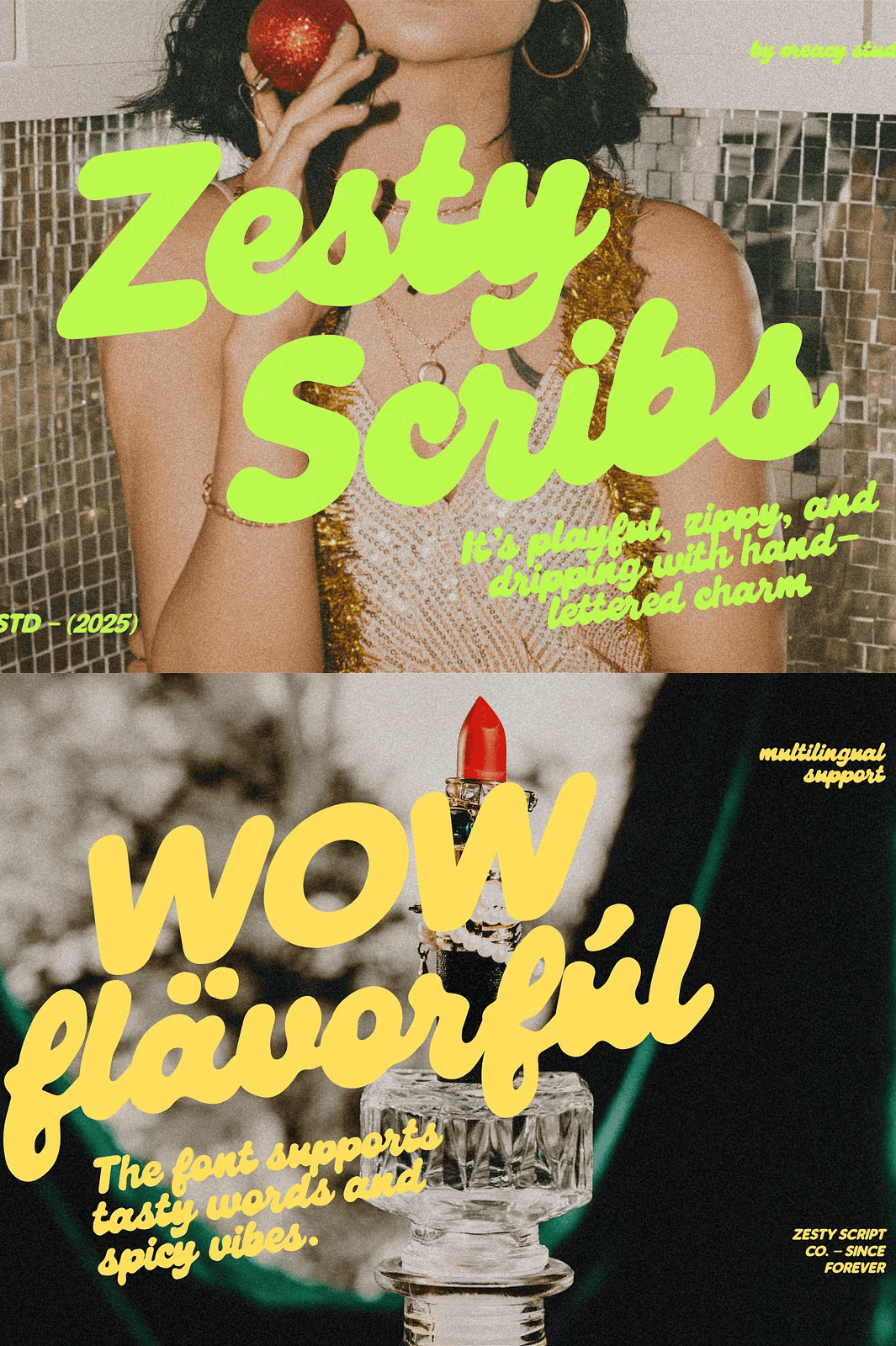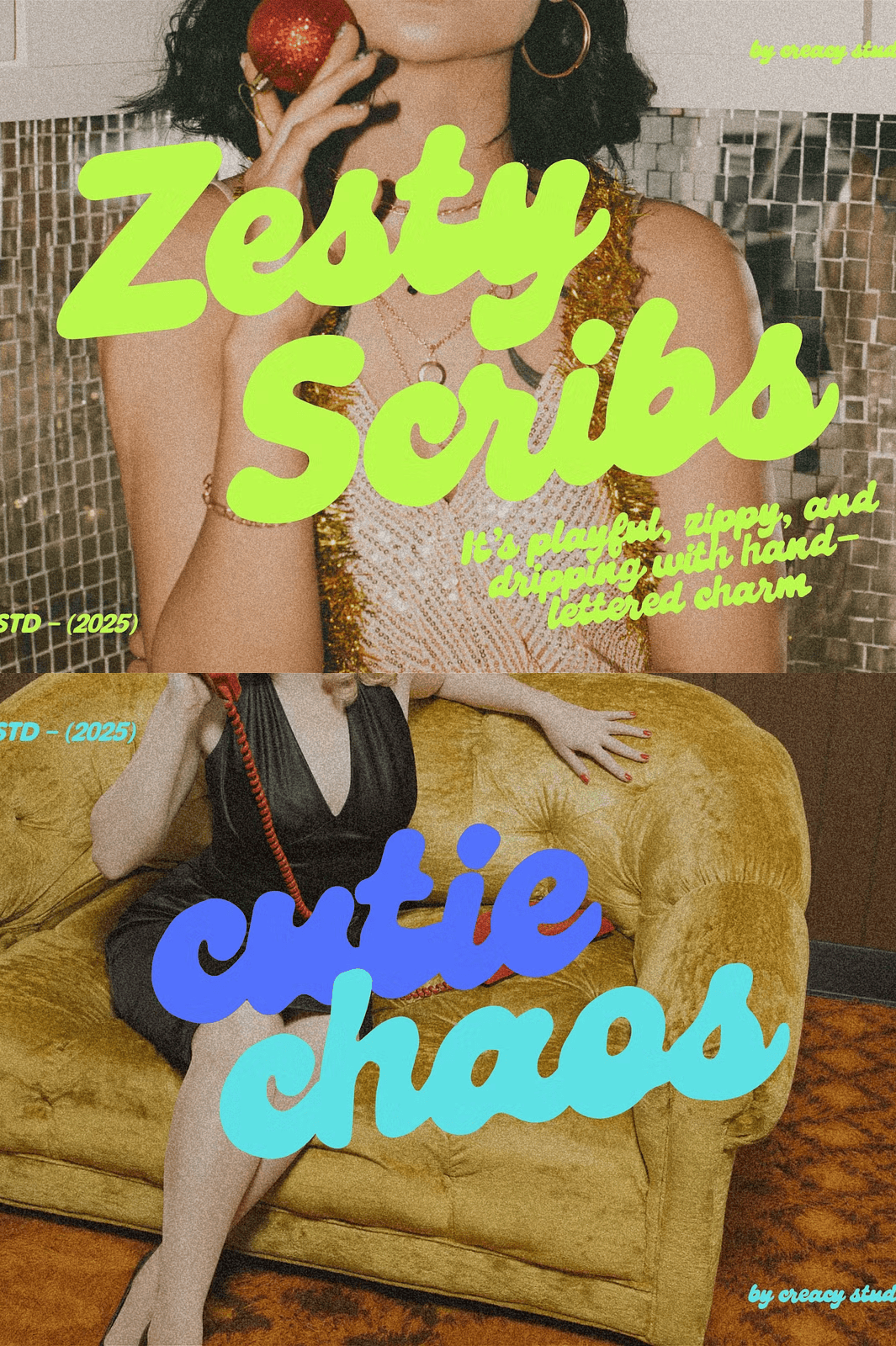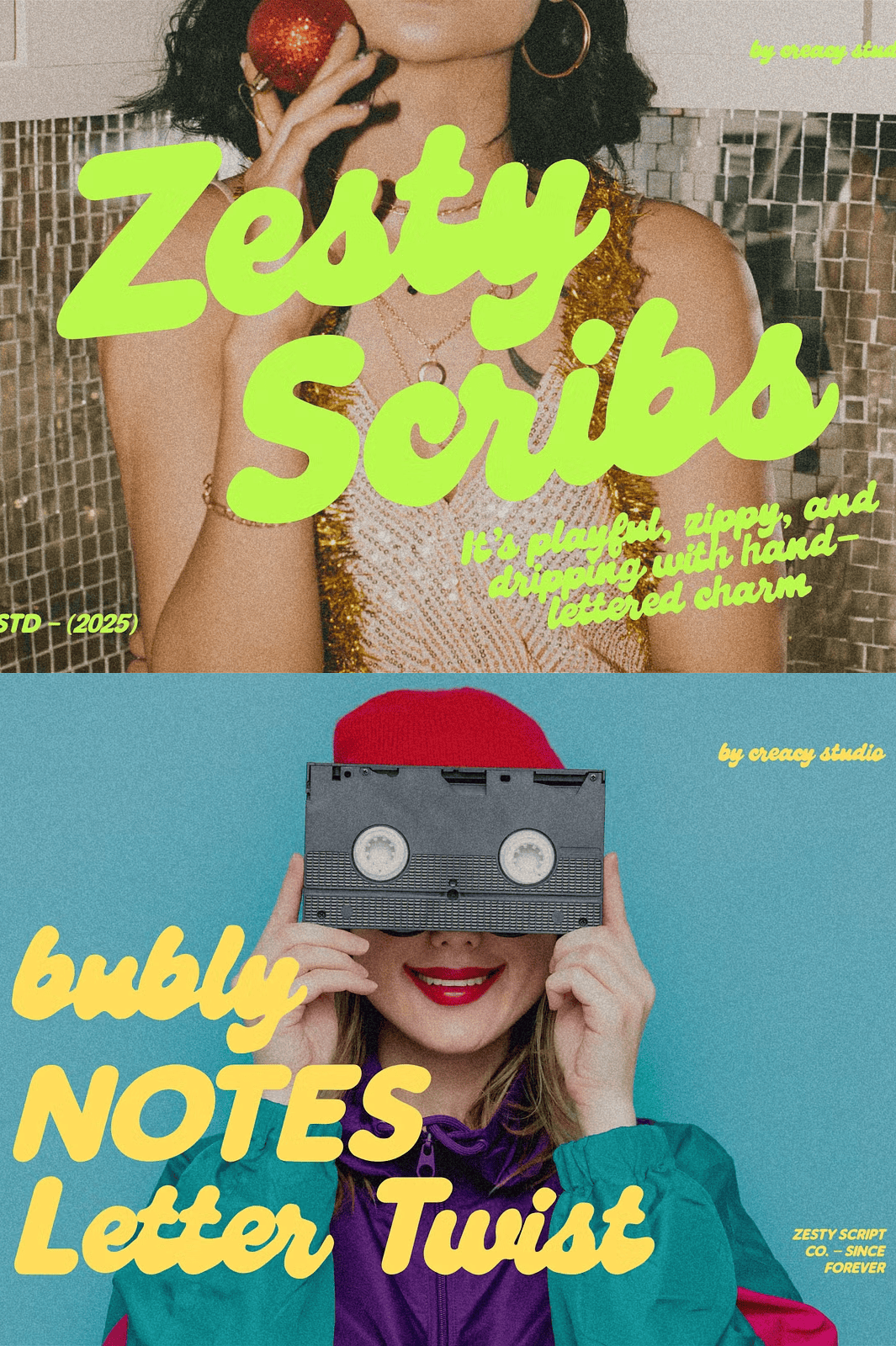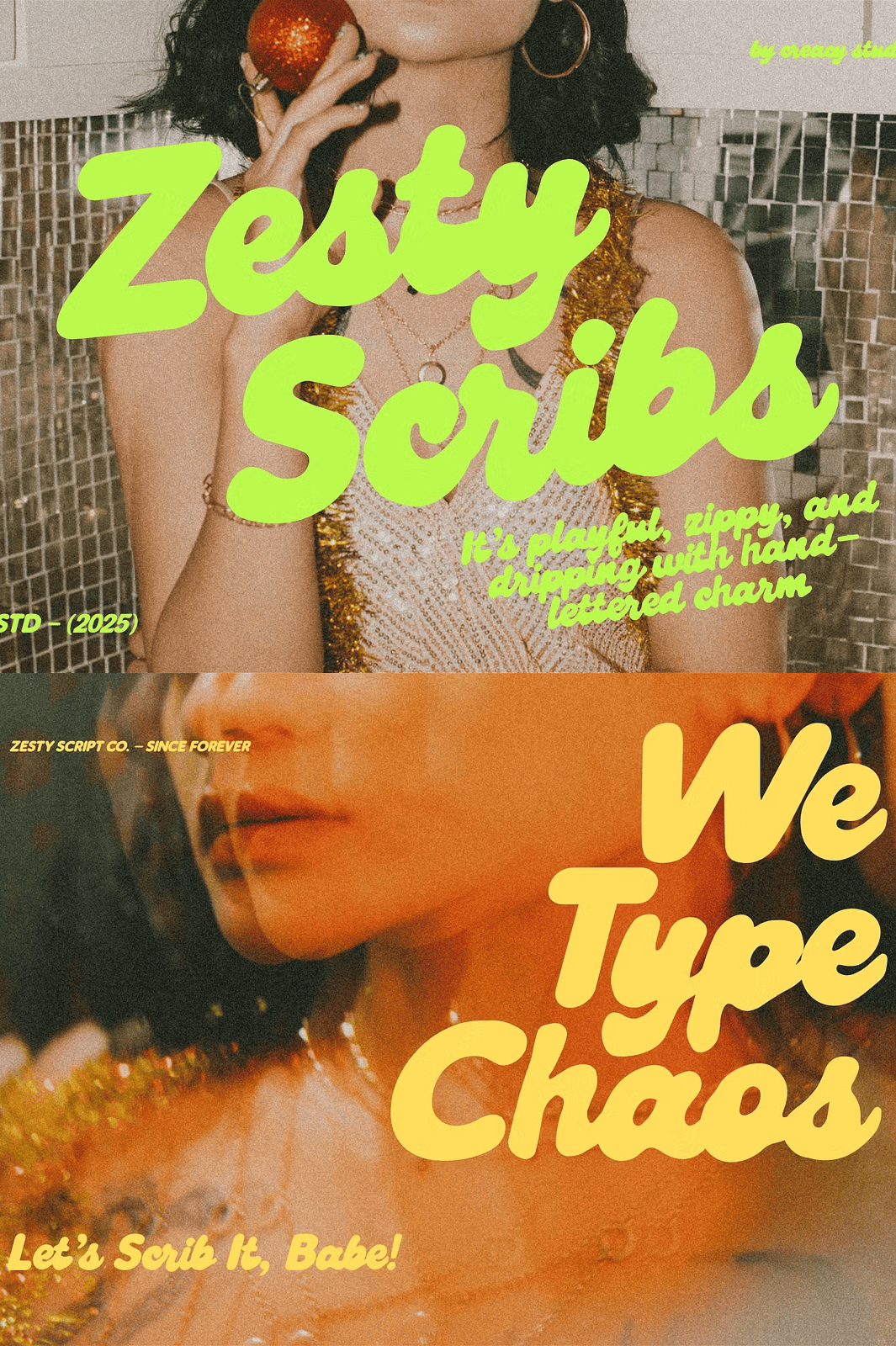
Meet Zesty Scribs: A Bold, Bubbly Script Font with Attitude and Personality
Say hello to **Zesty Scribs** a dynamic, hand-lettered script font that doesn’t just write words, it *screams* them with style. Bursting with energy, charm, and a cheeky sense of fun, this bold script is designed for creatives who want to stand out from the crowd. Whether you’re designing eye-catching packaging, crafting sassy social media posts, or building retro-inspired branding, Zesty Scribs delivers instant flair with every stroke.
With its smooth flowing curves, punchy thick-and-thin contrast, and expressive character shapes, Zesty Scribs brings a unique balance of playfulness and polish to your projects. It’s not just a font it’s a statement. A sassy, confident, and stylish declaration that says, “I’m here, and I’m not playing by the rules.”
Why Zesty Scribs Is a Must-Have in Your Design Toolkit
Perfect for projects that demand personality and visual impact, Zesty Scribs transforms ordinary text into vibrant, expressive designs. Its versatile style works across multiple design mediums, from digital to print, and fits effortlessly into themes involving retro vibes, lifestyle branding, fashion editorial, and cheeky marketing campaigns.
What’s Included in the Zesty Scribs Collection
- Full Character Set: Includes uppercase and lowercase letters, numerals, punctuation marks, and essential symbols to support full-range typography.
- Advanced Multilingual Support: Fully supports international characters including à, é, ñ, ç, and more ideal for global design projects and multilingual content.
Perfect Use Cases Where Zesty Scribs Shines
Zesty Scribs isn’t limited to one style or niche it thrives in dynamic, expressive projects:
- Bold headlines and fun quotes: Turn simple phrases into visual adventures with its vibrant character flow.
- Fashion & beauty branding: Elevate packaging, labels, and campaign visuals with a bold, lifestyle-forward identity.
- Greeting cards, stickers, and merch: Add a playful, handwritten touch that feels personal and full of life.
- Retro and expressive layouts: Ideal for vintage posters, zines, music flyers, and nostalgic design revivals.
- Social media with a twist: Create posts that stop the scroll with attitude, charm, and character.
Don’t just type *speak* with style. Whether you’re a designer, small business owner, or brand creator, Zesty Scribs gives you the tools to express your voice louder, bolder, and more memorably.